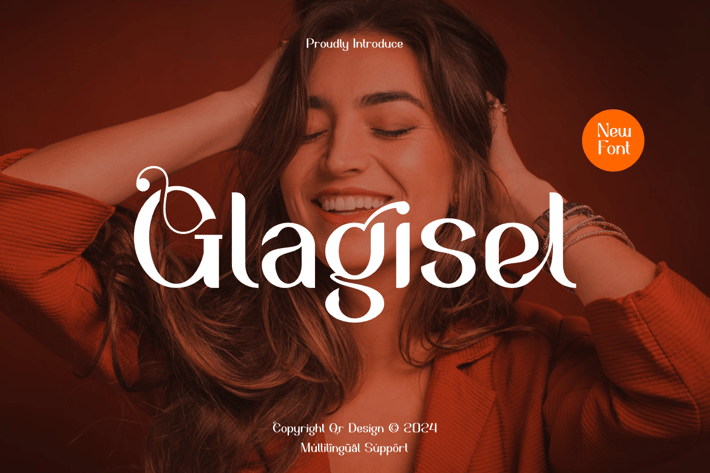
Glagisel - Minimal Typeface Font
Glagisel Font is a sans serif and minimal logo font.
Main Features
+ Uppercase & Lowercase
+ Ligatures & Alternate
+ Numeral & Punctuations
+ Multilingual Support
+ Extended Character Set